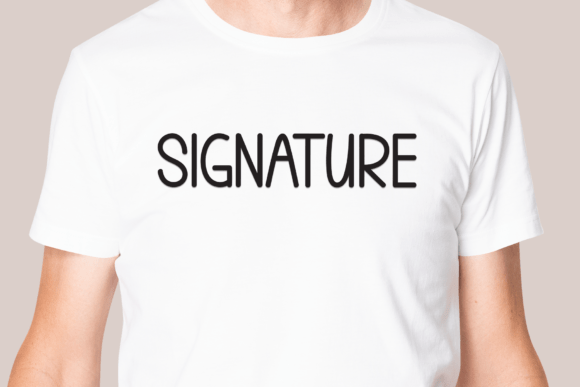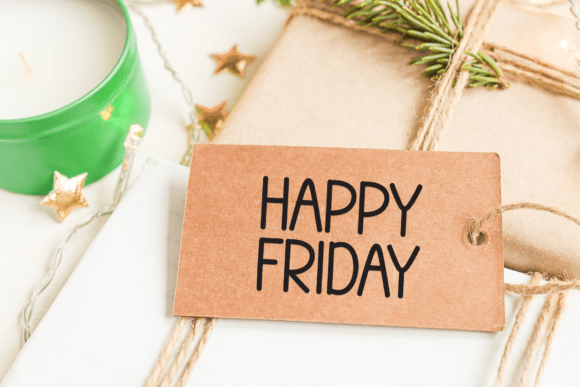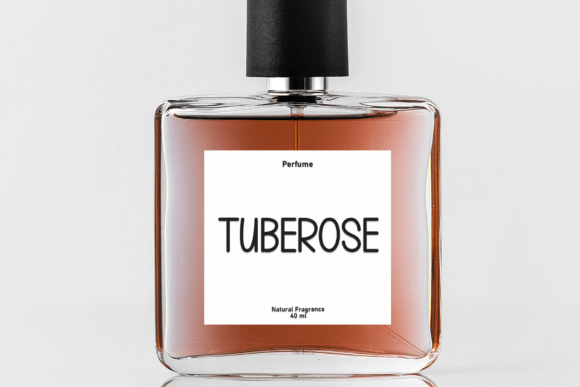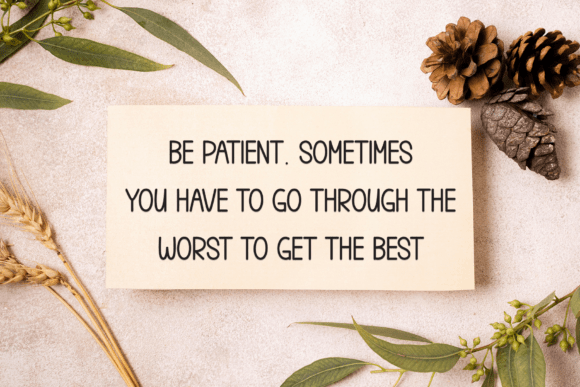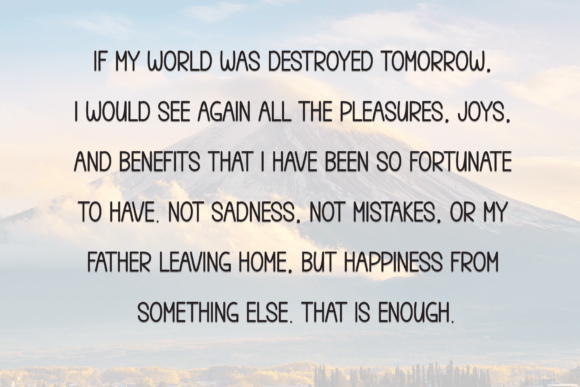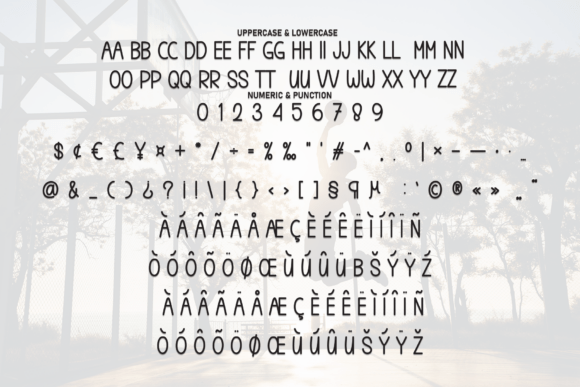
Step into the Court of Creativity with Basketball Font
Have you ever found yourself lost in a world of color and design, searching for the perfect way to express your creativity? You know that feeling when a spark of inspiration hits, and you can’t wait to bring it to life? For designers, this is a moment of pure bliss – and it’s exactly what our Basketball Font is designed to ignite.
Introducing Basketball Font, a charming handwritten display font that adds a touch of joy and playfulness to any design. Whether you’re crafting wedding invitations, greeting cards, or any other project, this font brings life and excitement to your creations. Its unique character is a valuable asset for designers, allowing you to unleash your imagination and infuse your designs with a spirited aesthetic.
• Unique Characteristics: Basketball Font features a bold, modern design with clean lines and geometric shapes, giving it a unique and eye-catching appearance.
Basketball Font Review
Overall, I was excited to dive into Basketball Font, but my experience was a mixed bag. Here are my thoughts.
• The font’s energetic and playful vibe is perfect for sports-related projects.
• The bold and curved lines give it a dynamic feel that’s hard to ignore.
• It’s easy to read, even at smaller font sizes.
• The font’s boldness can be overwhelming in certain contexts, making it hard to use in more subtle designs.
• The limited character set and lack of language support might be a deal-breaker for some users.
• The font’s aesthetic may not be to everyone’s taste, which can be a challenge in projects where consistency is key.
While Basketball Font has its strengths, its limitations hold it back from being a truly versatile font. If you’re working on a project that requires an energetic and playful vibe, this font might be a good choice. However, for more complex or nuanced designs, you might want to consider other options.
Use the Basketball Font to add a fun and sporty touch to your designs. It’s perfect for creating sports-themed posters, flyers, and social media graphics. You can also use it to add emphasis to headings and titles in your designs.
The Basketball Font is commonly used in designs related to sports, fitness, and recreation. Some popular use cases include:
– Sports-themed posters and flyers
– Social media graphics and banners
– Fitness and wellness websites and blogs
– Recreation and leisure-themed designs
Alternatives to Basketball Font for Designers
Akzidenz-Grotesk
Akzidenz-Grotesk is a sans-serif font that originated in the late 19th century. It’s known for its clean and neutral design, making it suitable for corporate branding, editorial design, and digital interfaces.
Compared to Basketball Font, Akzidenz-Grotesk is more versatile and can be used for a wider range of applications. While Basketball Font has a more distinctive, handwritten feel, Akzidenz-Grotesk is more straightforward and easy to read.